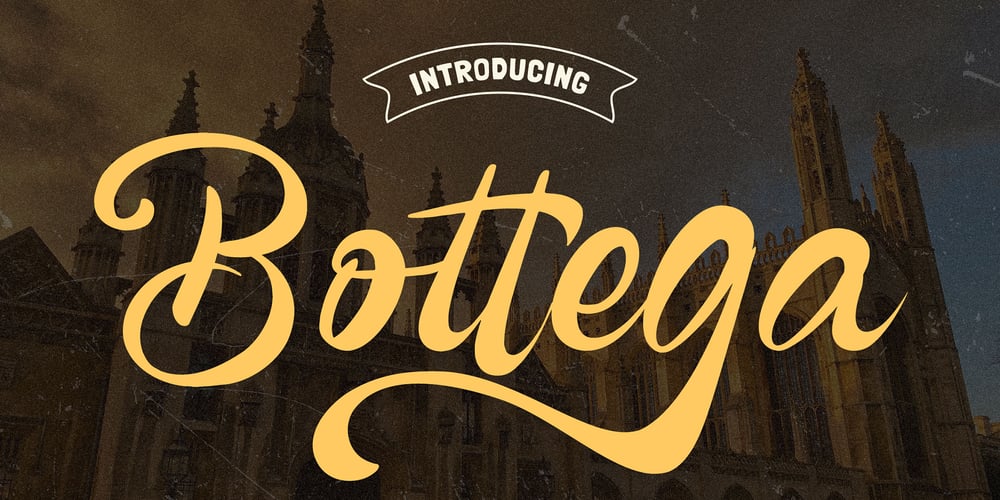
Bottega Font Family was designed by Tezar Tantular and published by Keristyper Studio. Bottega contains 1 styles and family package options. Bottega is a script bold classic font with a relaxed theme, featuring a lovely style. This font was created to look as close to a natural handwritten script as possible. It is good for logo design, Social media, Movie Titles, Books Titles, short text even long text letters, and good for your secondary text font with sans or serif.Featured: Standard Uppercase & Lowercase Numeral & Punctuation Multilingual : ä ö ü Ä Ö Ü ß ¿ ¡ Alternate & Ligature PUA encoded We recommend programs that support the OpenType feature and the Glyphs panel such as Adobe applications or Corel Draw. so you can use all the variations of the glyphs. Hope you enjoy our fonts!